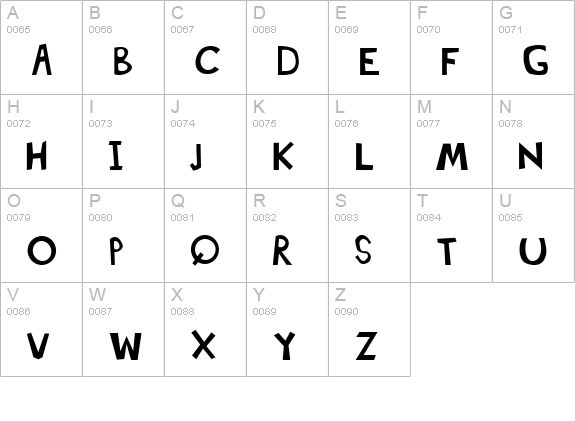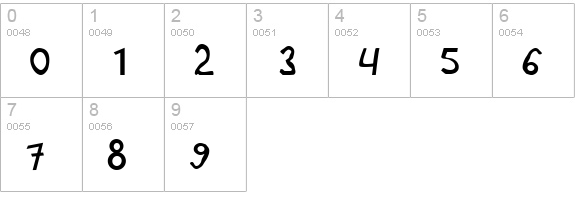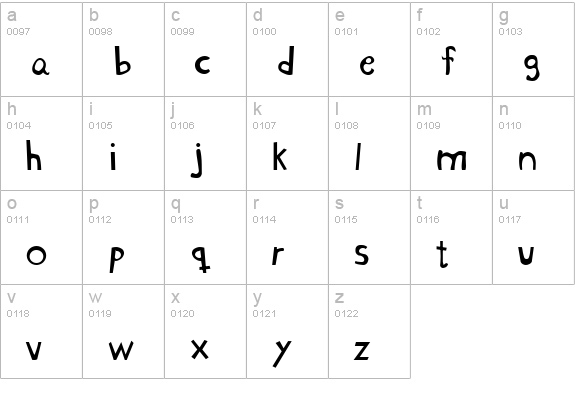
Kalli Font Details
Introducing Kalli Font, a visually stunning and versatile typeface that is sure to add a touch of elegance to any design project. With its graceful curves and refined letterforms, Kalli Font is perfect for creating eye-catching headlines, logos, invitations, and more. What sets Kalli Font apart is not only its exquisite design but also the fact that it is available for free. That's right, you heard it correctly - Kalli Font can be downloaded at absolutely no cost from FontsMarket.com, making it accessible to designers, creatives, and typography enthusiasts alike. Whether you're a professional designer looking to elevate your work, or an aspiring artist searching for the perfect font to bring your ideas to life, Kalli Font is the ideal choice. Its timeless charm and effortless sophistication make it suitable for a wide range of design applications, from branding and advertising to editorial layouts and beyond. The versatility of Kalli Font is further enhanced by its extensive character set, including uppercase and lowercase letters, numerals, punctuation marks, and a variety of special symbols. This comprehensive collection ensures that you have all the tools you need to create captivating and cohesive designs. But don't just take our word for it - experience the beauty of Kalli Font for yourself. Head over to FontsMarket.com and take advantage of the opportunity to freely download this extraordinary typeface. Discover the endless possibilities that Kalli Font offers and let your creativity soar to new heights. Whether you're a seasoned designer or a beginner exploring the world of typography, Kalli Font will undoubtedly become a staple in your font library. Unleash your imagination and let Kalli Font transform your designs into works of art. Don't miss out on this incredible free font - download Kalli Font today and unlock a world of design possibilities.